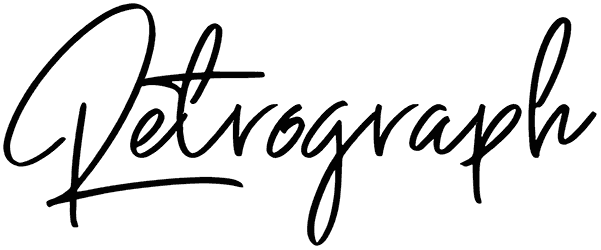
Retrograph Font
You’ll see how practical a signature font can be in different scenarios if you try Retrograph in a few of your projects. For instance, it comes in handy for designing all kinds of business cards for photography studios, dance classes, or music schools, posters for Valentine’s Day, or anniversary parties, and lots of other artworks.
But first, check to see if your text contains any numbers, then you can consider using this cool handwritten font in your lettering without any trouble.